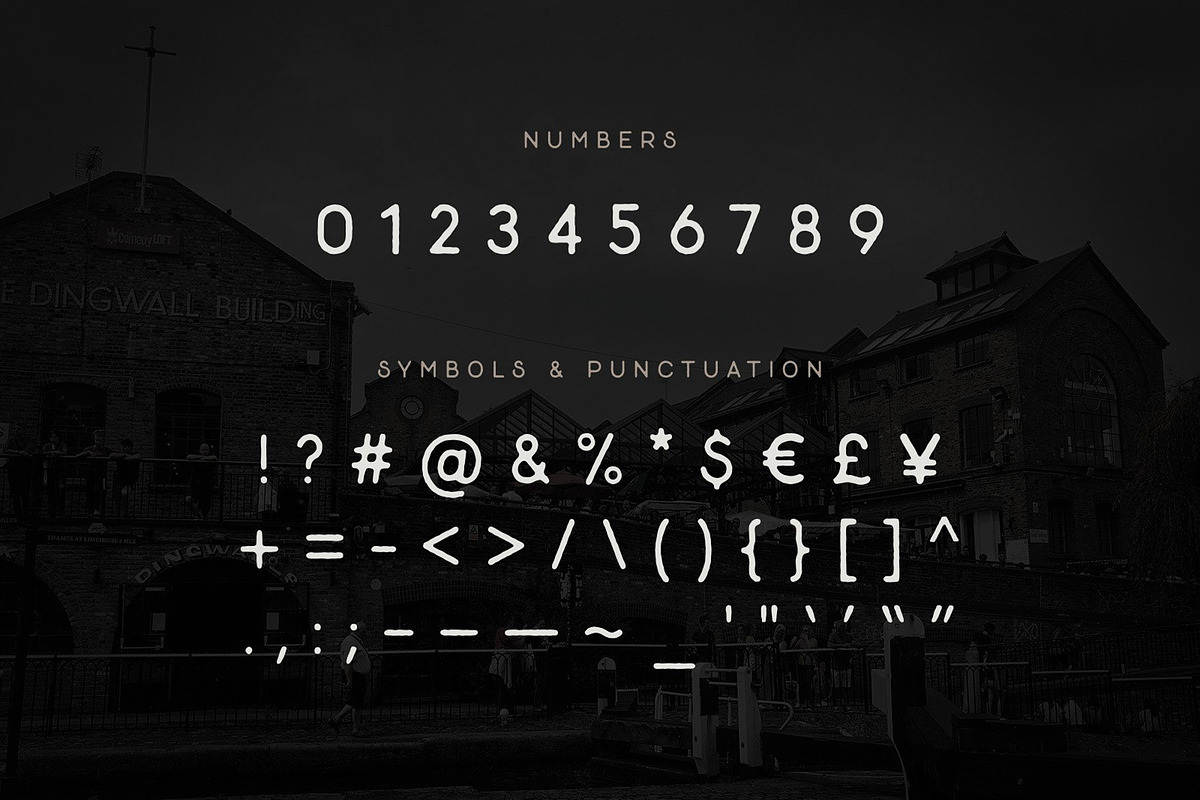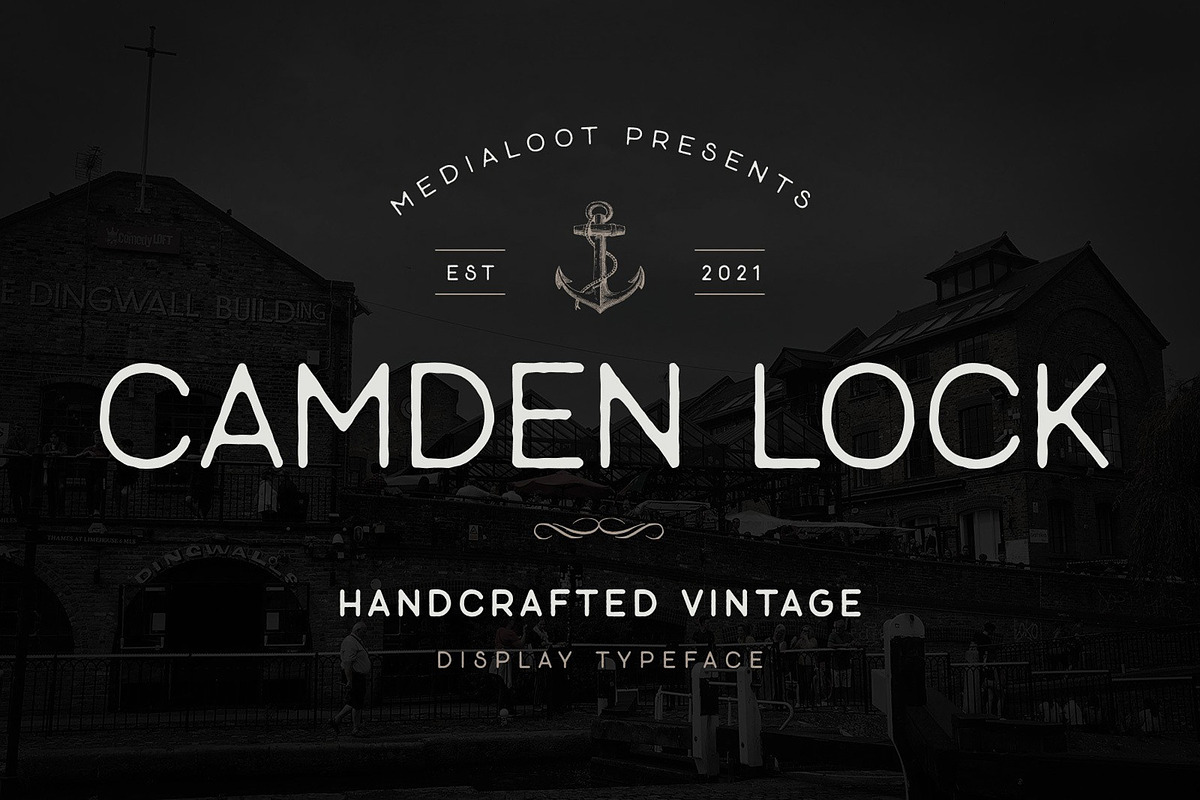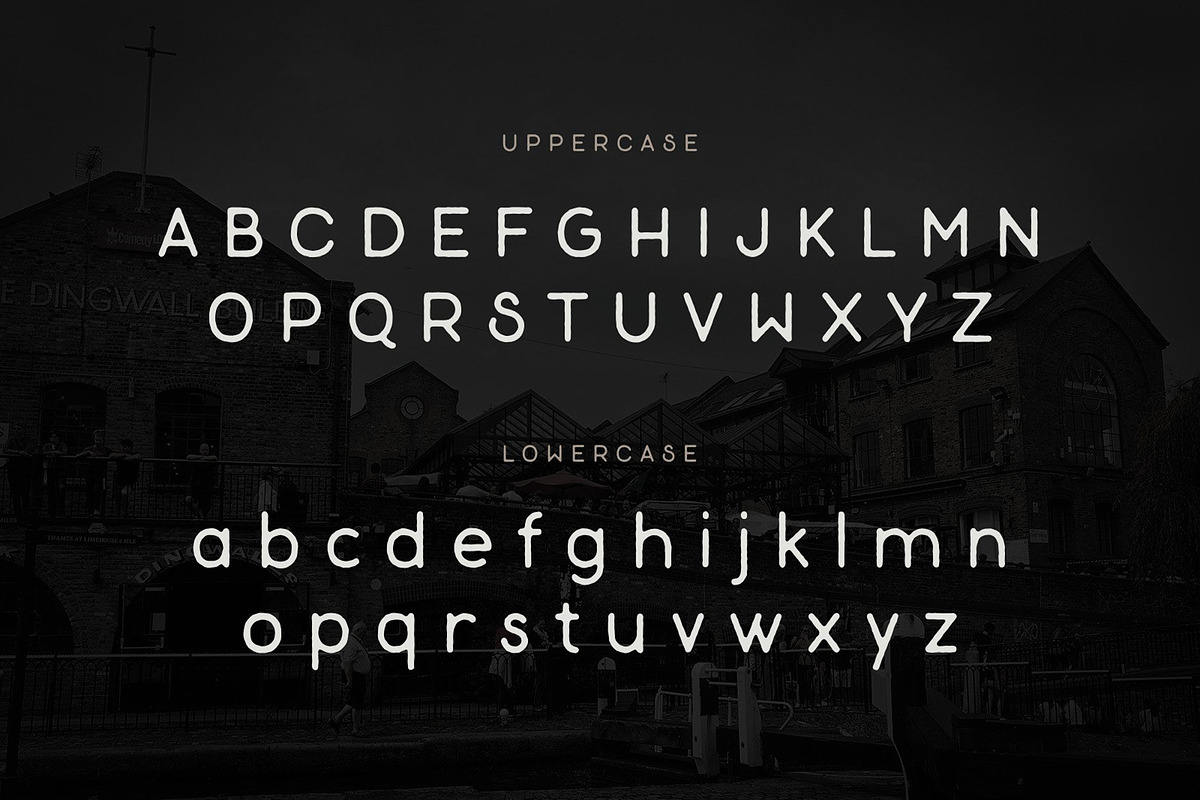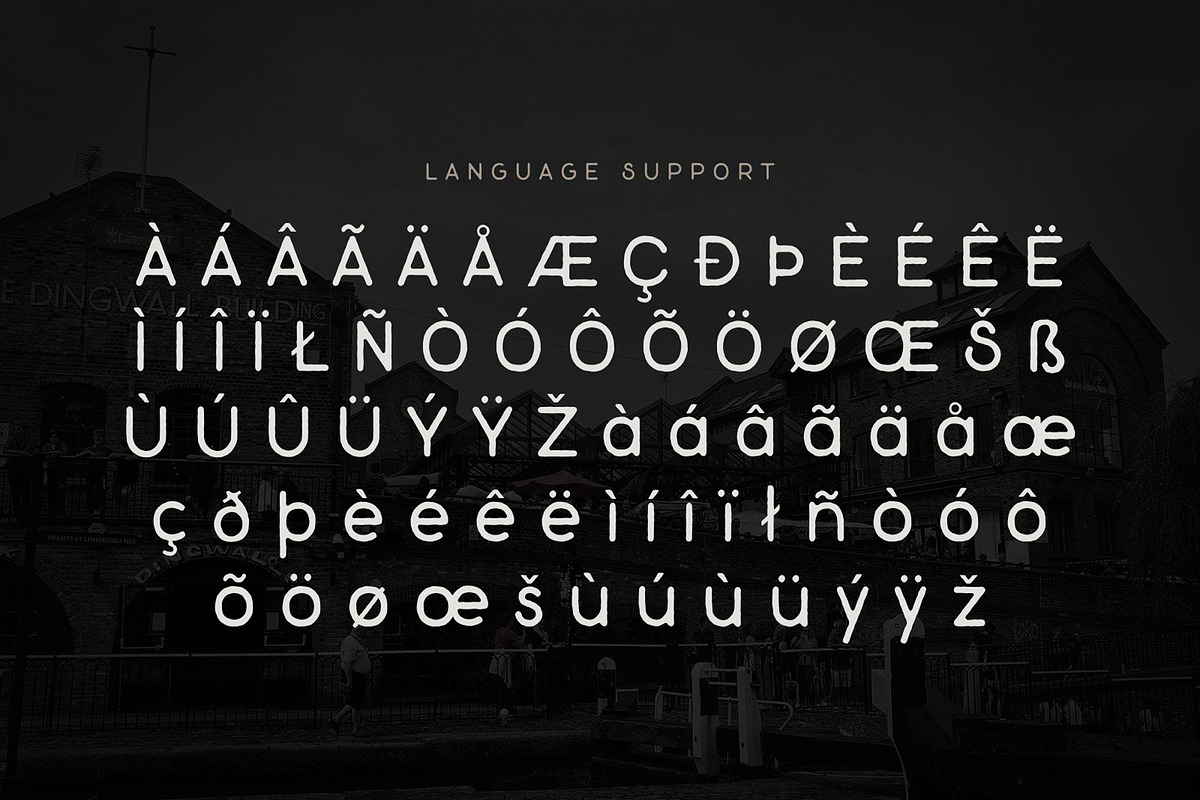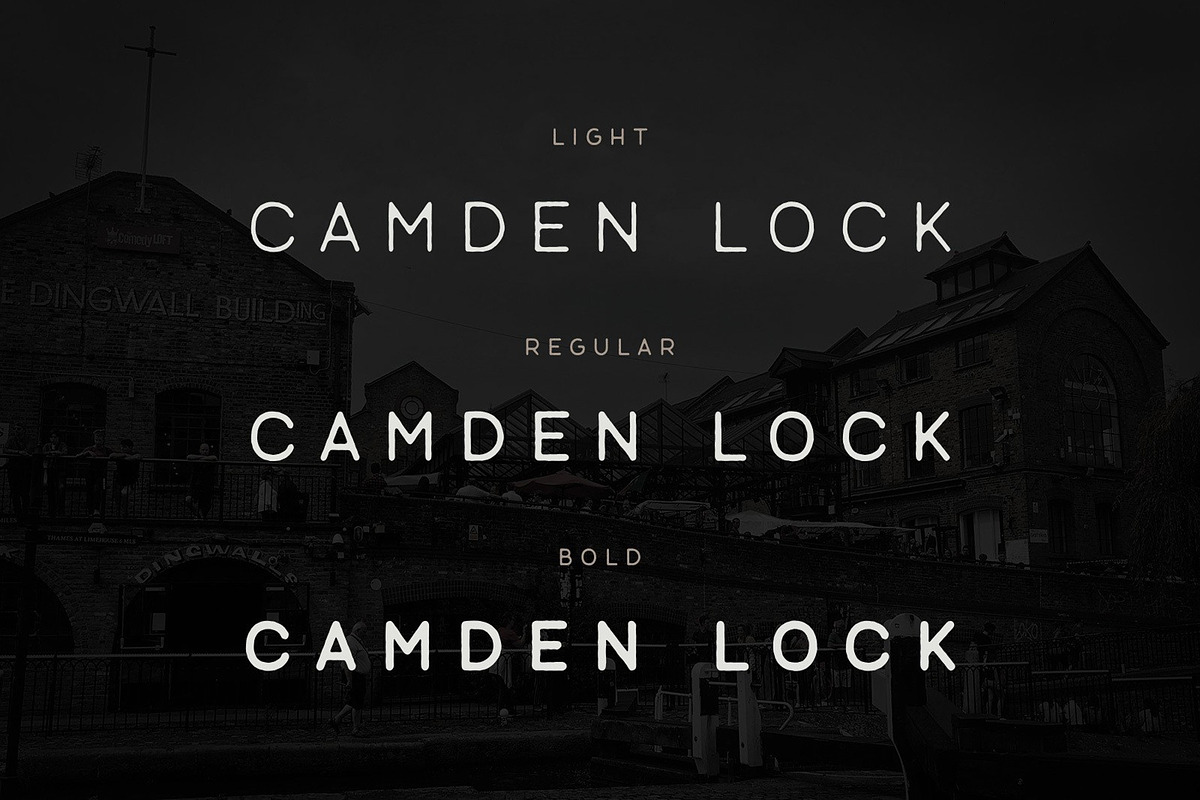
Camden Lock - Vintage Display Font
Camden Lock is a font-face inspired by urban city life, and vintage signage. It uses simple letter forms that are weathered and rough around the edges, resembling old painted signs. Camden Lock focuses on achieving an authentic distressed aesthetic. This grunge font is perfect for adding an aged, vintage feeling to your projects.
- All uppercase letters (A-Z)
- All lowercase letters (a-z)
- All numbers (0-9)
- Common symbols and punctuation
- European characters, accented letters and symbols
Variations & Weights:
- Light
- Bold
We recommend using Light at large headline sizes, bold for smaller subtitle text and Regular for everything in between. At the end off the day though, the choice is yours. Be creative and enjoy!